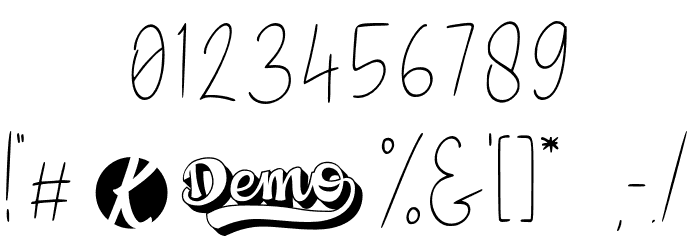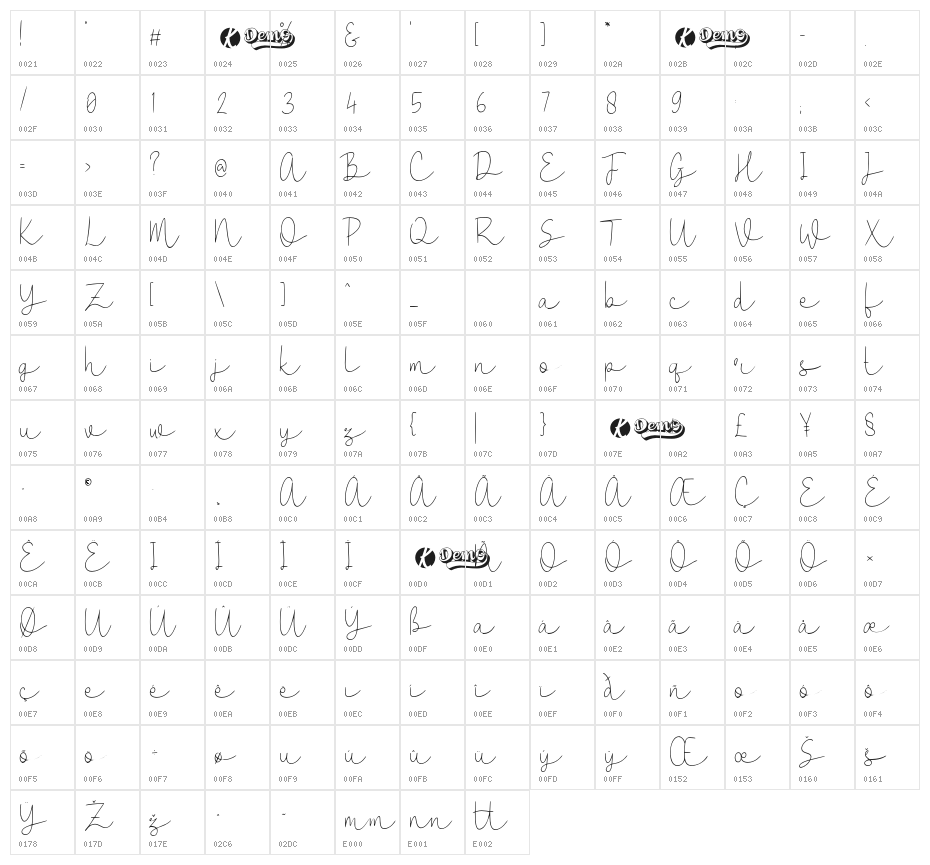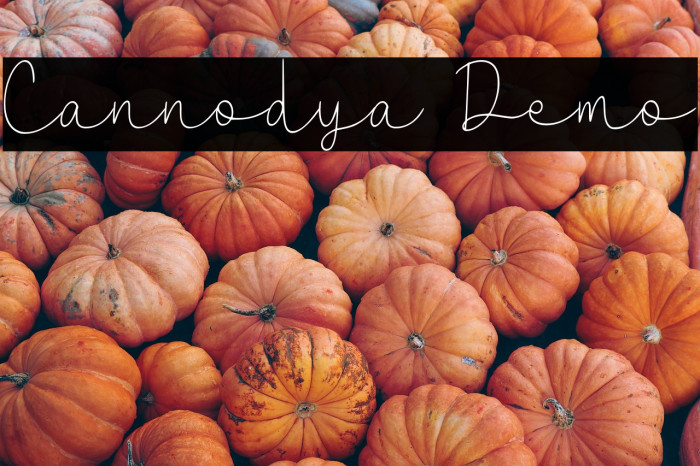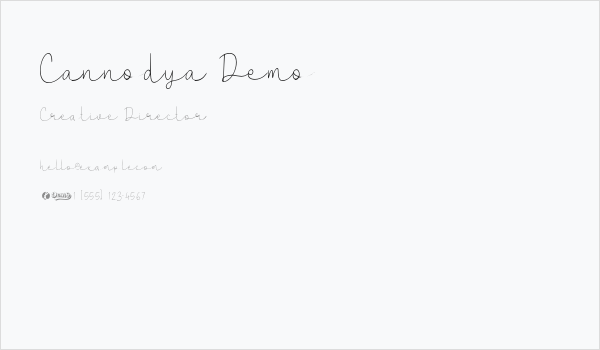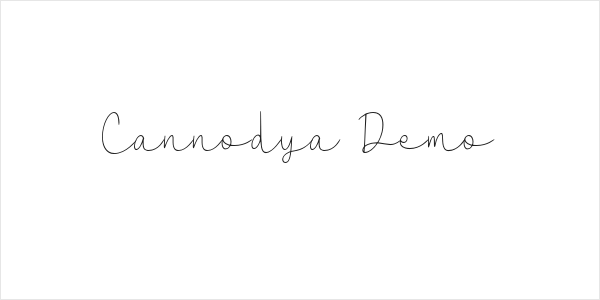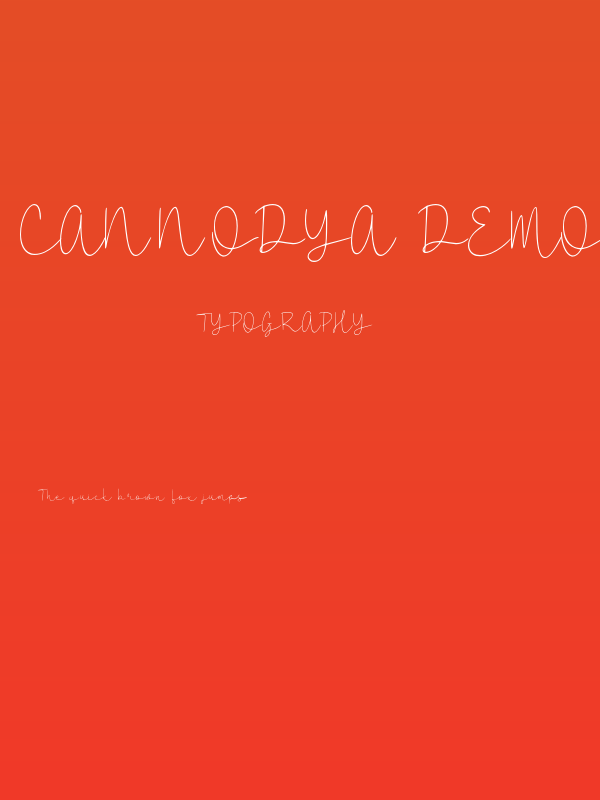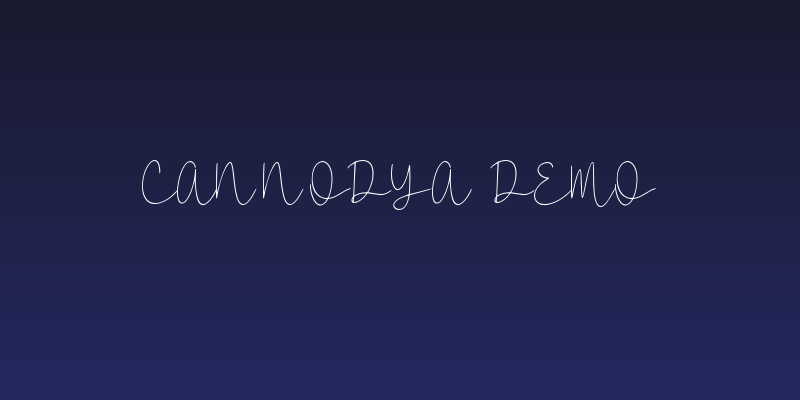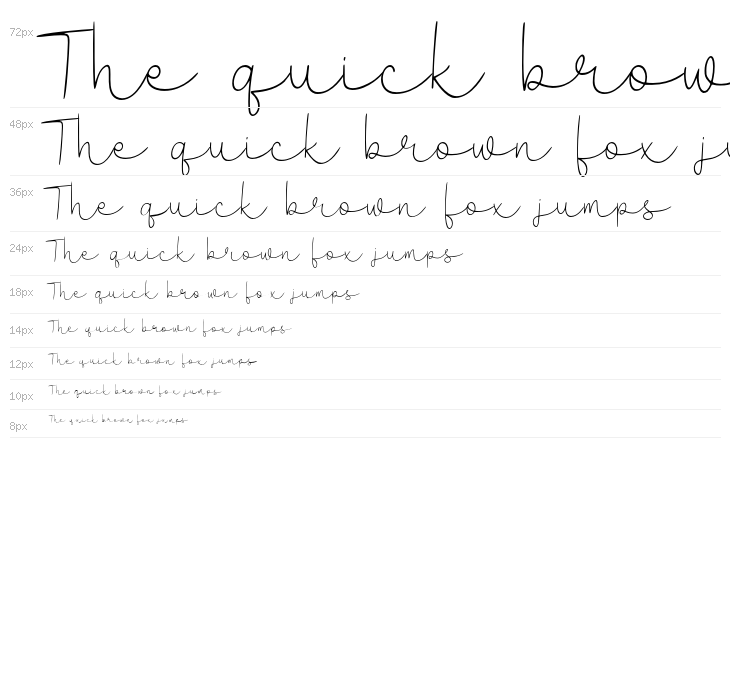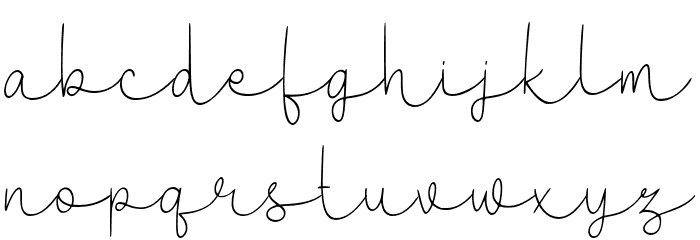
Cannodya Demo Font
Cannodya Demo Description
This font features a delicate, handwritten style with a flowing, cursive appearance. The uppercase letters are elegantly looped, while the lowercase letters maintain a consistent, smooth line that gives a sense of continuity and grace. The numerals are simple yet stylish, complementing the overall aesthetic. Special characters are included, adding versatility for various design needs. The font's thin strokes and gentle curves create a light and airy feel, making it suitable for projects that require a personal touch.
| Overall Style | Elegant, Personal |
| Use Case | Logos, Invitations, Personal notes |
| Proposed Projects | Ideal for wedding invitations, personal branding, greeting cards, and elegant stationery. |